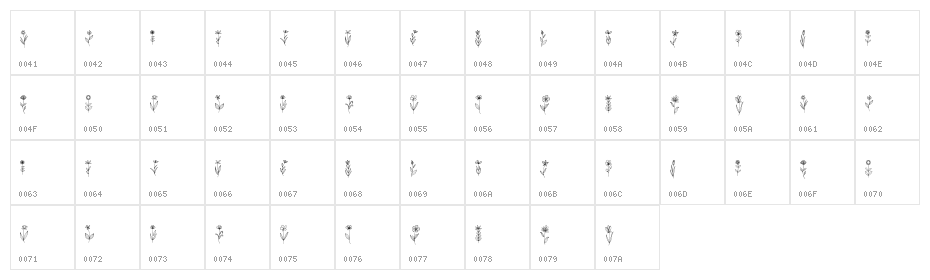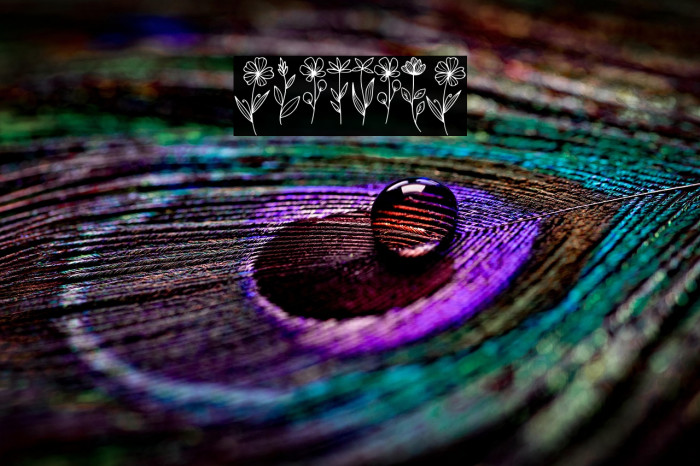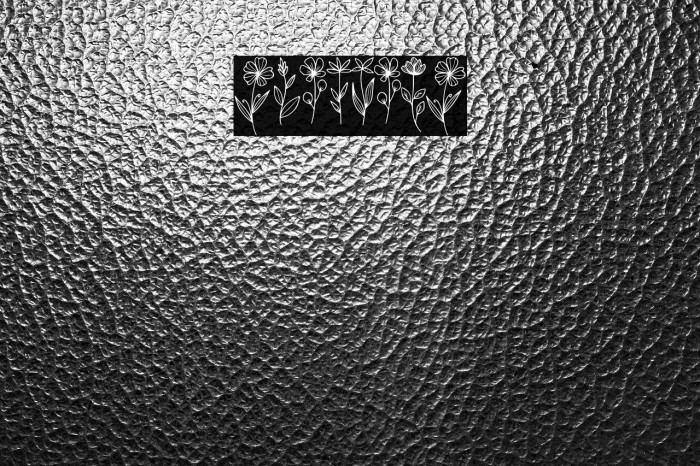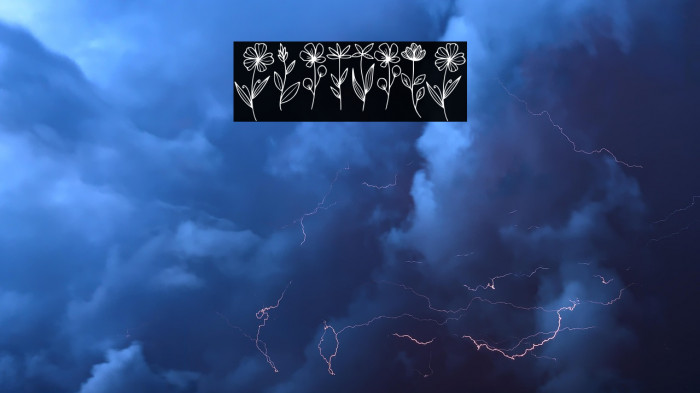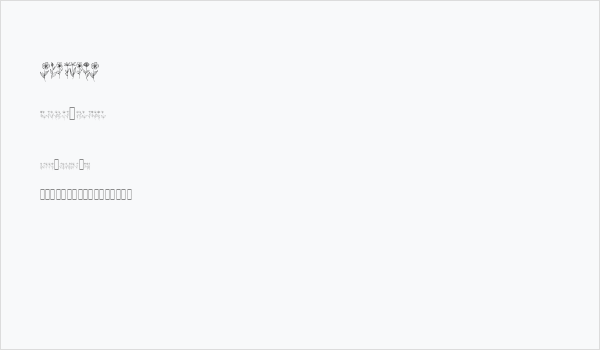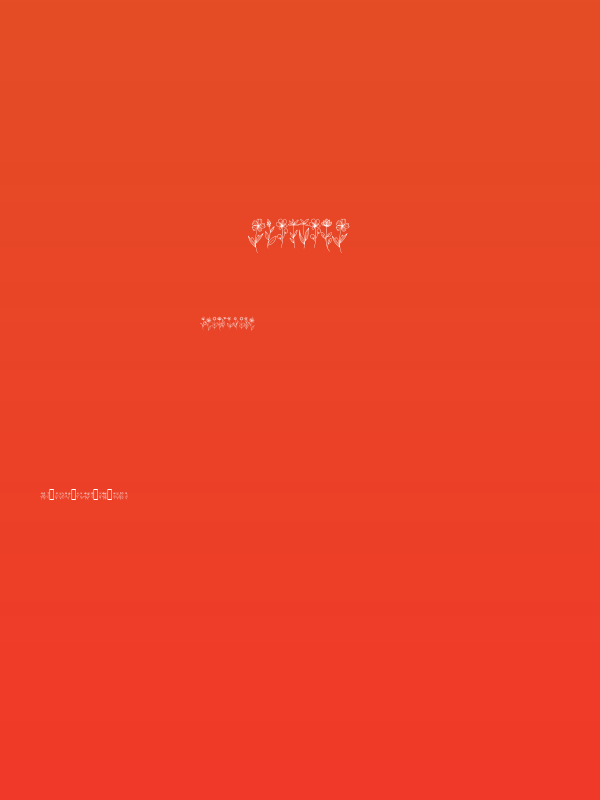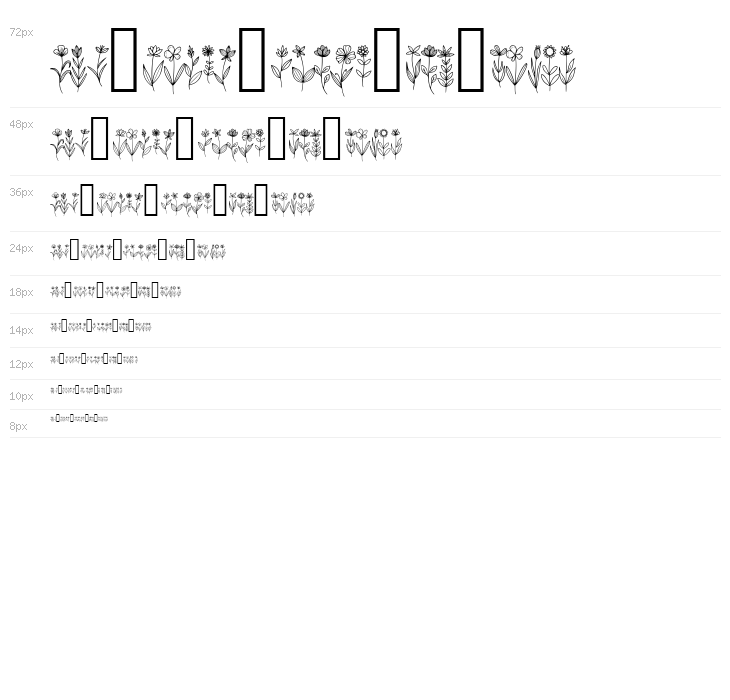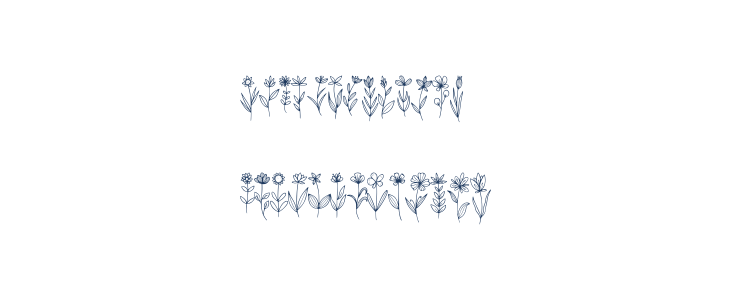
Wildflow Font
Wildflow Description
A decorative, hand-drawn style featuring whimsical wildflower illustrations in place of traditional alphanumeric characters, with delicate line work and organic shapes.
| Overall Style | Decorative, Whimsical, Organic |
| Use Case | Logos, Headlines, Artistic projects |
| Proposed Projects | Wedding invitations, greeting cards, botanical branding, nature-themed posters, scrapbooking. |